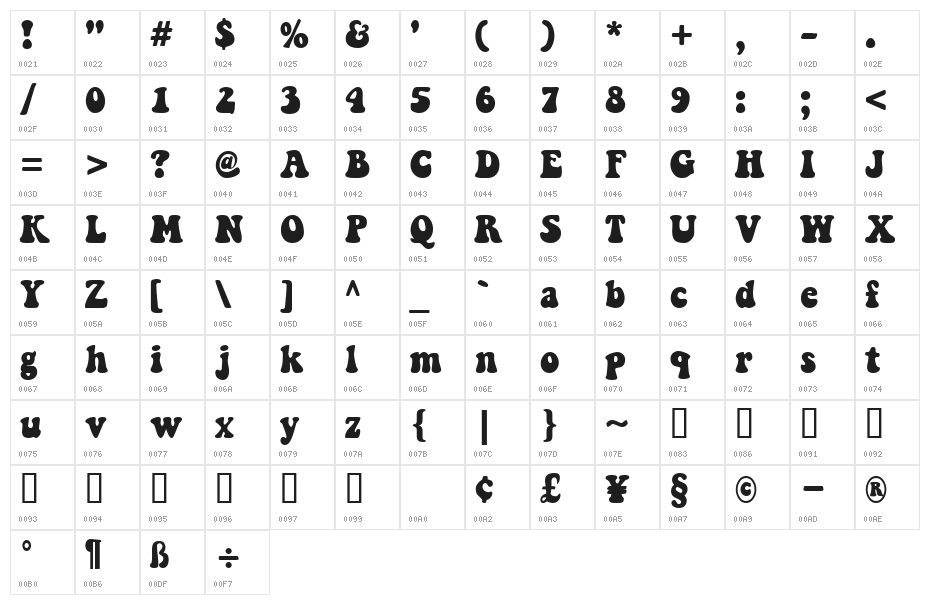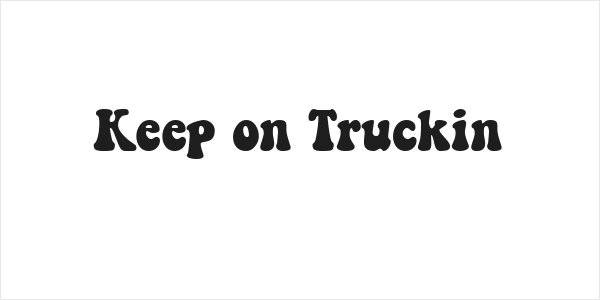
Keep on Truckin Font
Keep on Truckin Description
This font exudes a playful and retro vibe, characterized by its bold, rounded, and exaggerated letterforms. The thick strokes and whimsical curves give it a distinctive, eye-catching appearance. Each character is uniquely shaped, with a sense of movement and fluidity, reminiscent of the 1960s and 70s psychedelic and pop art styles. The font's heavy weight and substantial presence make it ideal for designs that require a strong visual impact. Its quirky and fun nature makes it perfect for projects that aim to capture a sense of nostalgia and creativity.
| Proposed Projects | Ideal for posters, album covers, retro-themed branding, and playful graphic designs. |